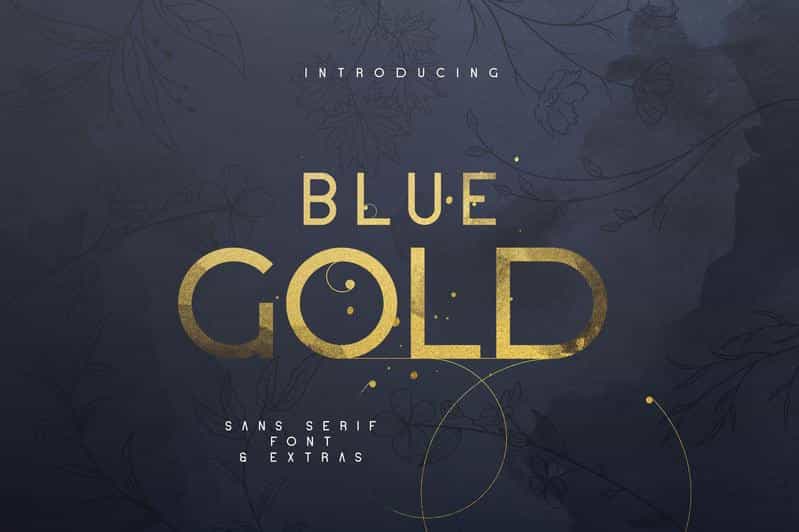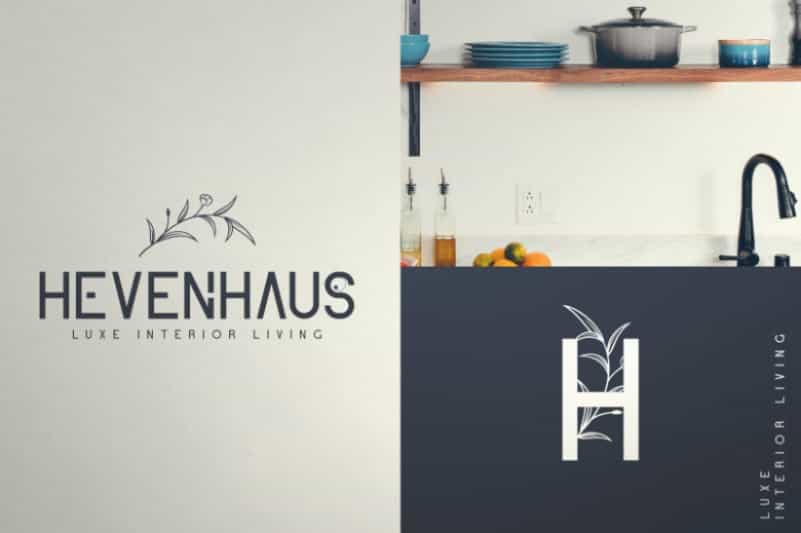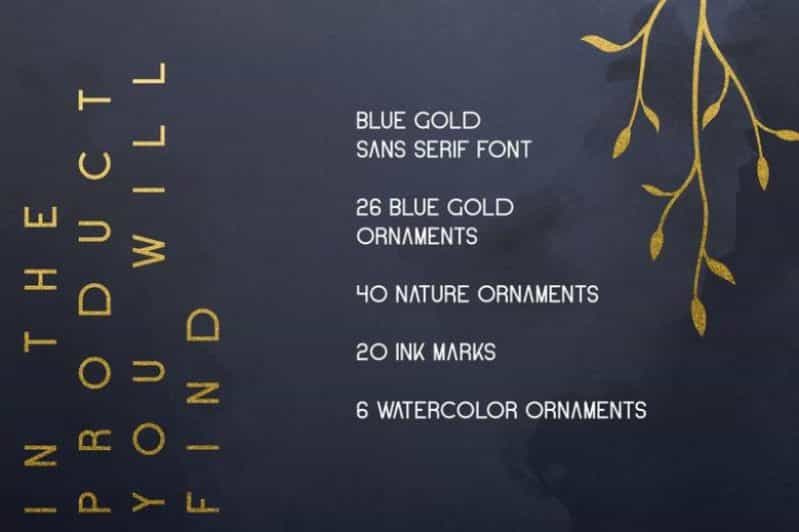
Blue Gold is all uppercase, clean font with a lot of alternative glyphs, ornaments and nature elements. It also has photoshop styles, watercolors, ink marks and multilingual support. It is a font that can be used in any size, big or small.